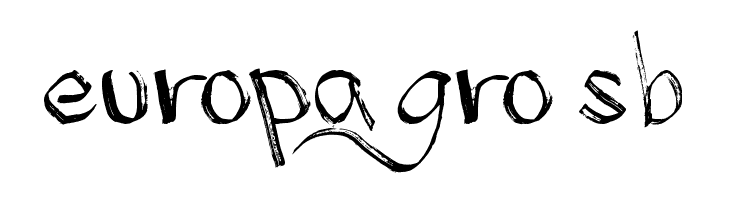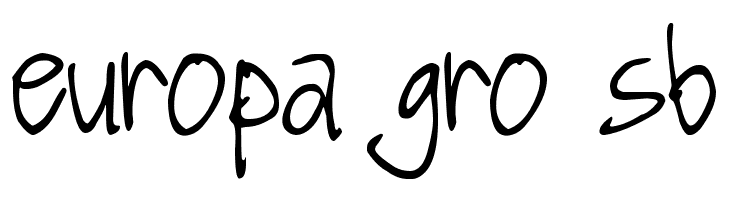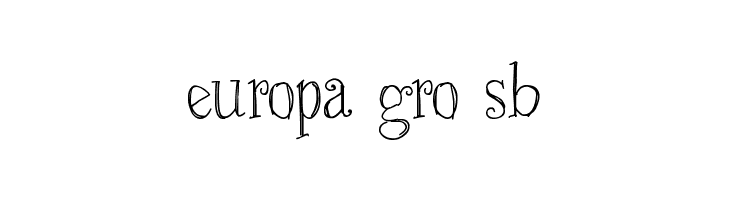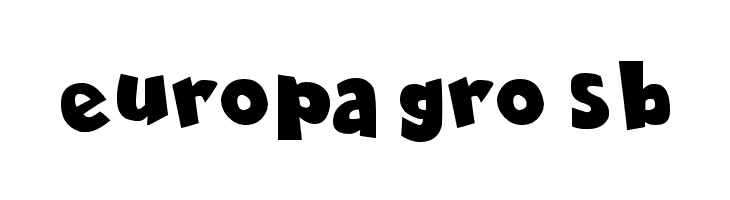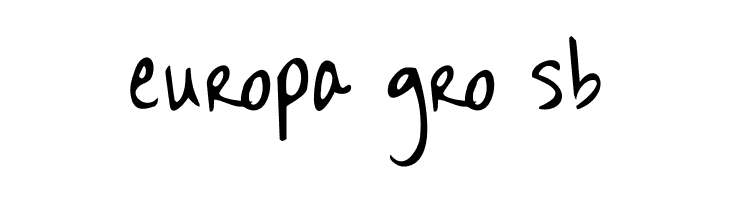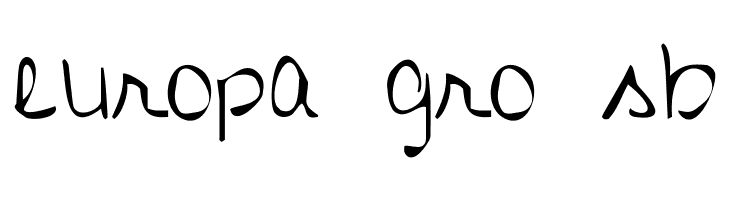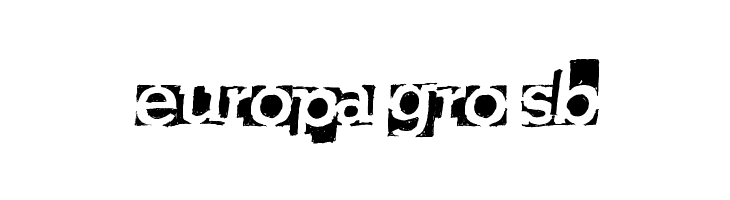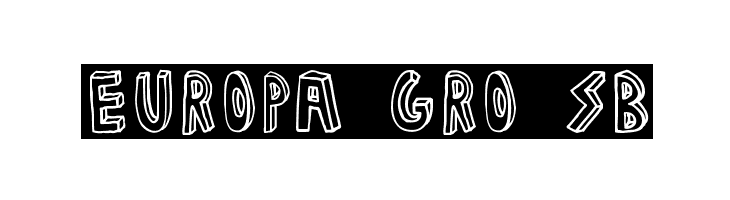
A playful, handwritten font with a casual and creative vibe.
A whimsical, hand-drawn font with thin, elongated letterforms.
A bold, playful typeface with a comic book style and lively character.
A playful, casual handwritten font with uneven strokes and organic flow.
A playful, casual handwritten font with uneven strokes and a whimsical appearance.
A playful, handwritten font with uneven strokes and a casual, friendly style.
A playful, handwritten font with uneven strokes and a casual vibe.
A bold, distressed font with a grunge aesthetic and uneven edges.
A playful, hand-drawn font with bold, uneven strokes.